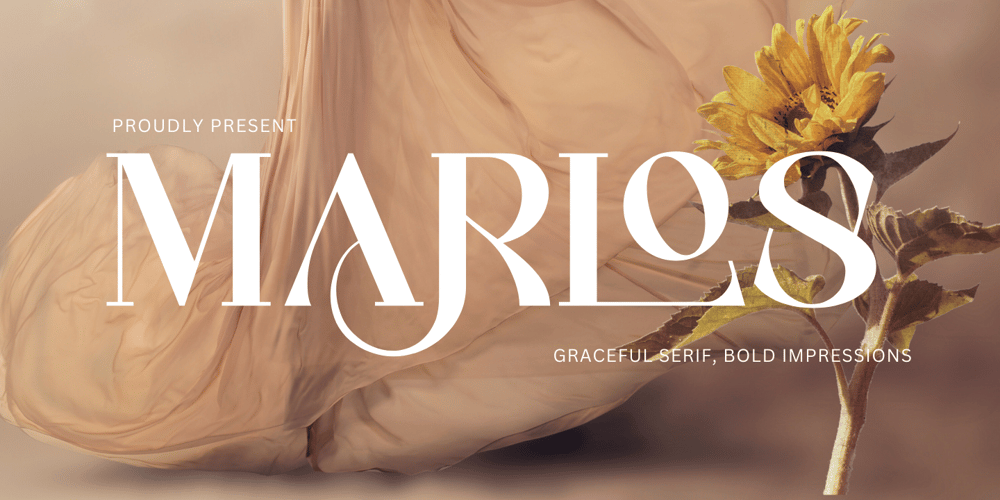
Marlos
Marlos font
Marlos Font Family was designed by Muhamad Yusron Billah and published by Sronstudio. Marlos contains 1 styles and family package options. “Introducing ‘Marlos,’ a serif font that marries the elements of grace and boldness seamlessly. With its graceful serifs and commanding letterforms, ‘Marlos’ leaves a bold and lasting impression. Ideal for projects that demand a perfect balance between sophistication and impact, this font brings a touch of timeless elegance to your designs, making it a go-to choice for creating a powerful visual presence.”Features:- Ligatures- Alternate- PUA Encoded- Multilingual support- Simple Installation- Work both on Mac and WindowsThank you very much ๐Ÿ™‚